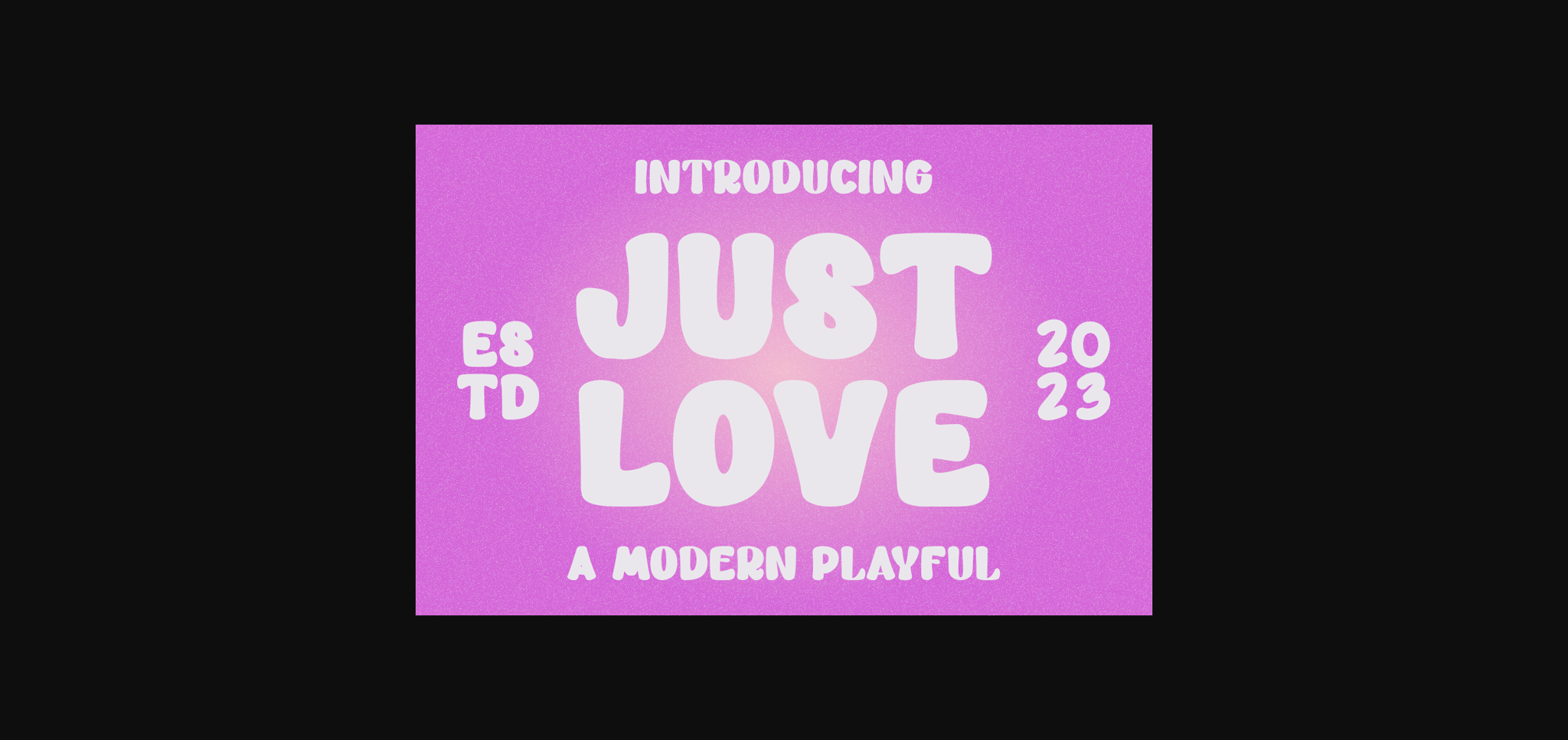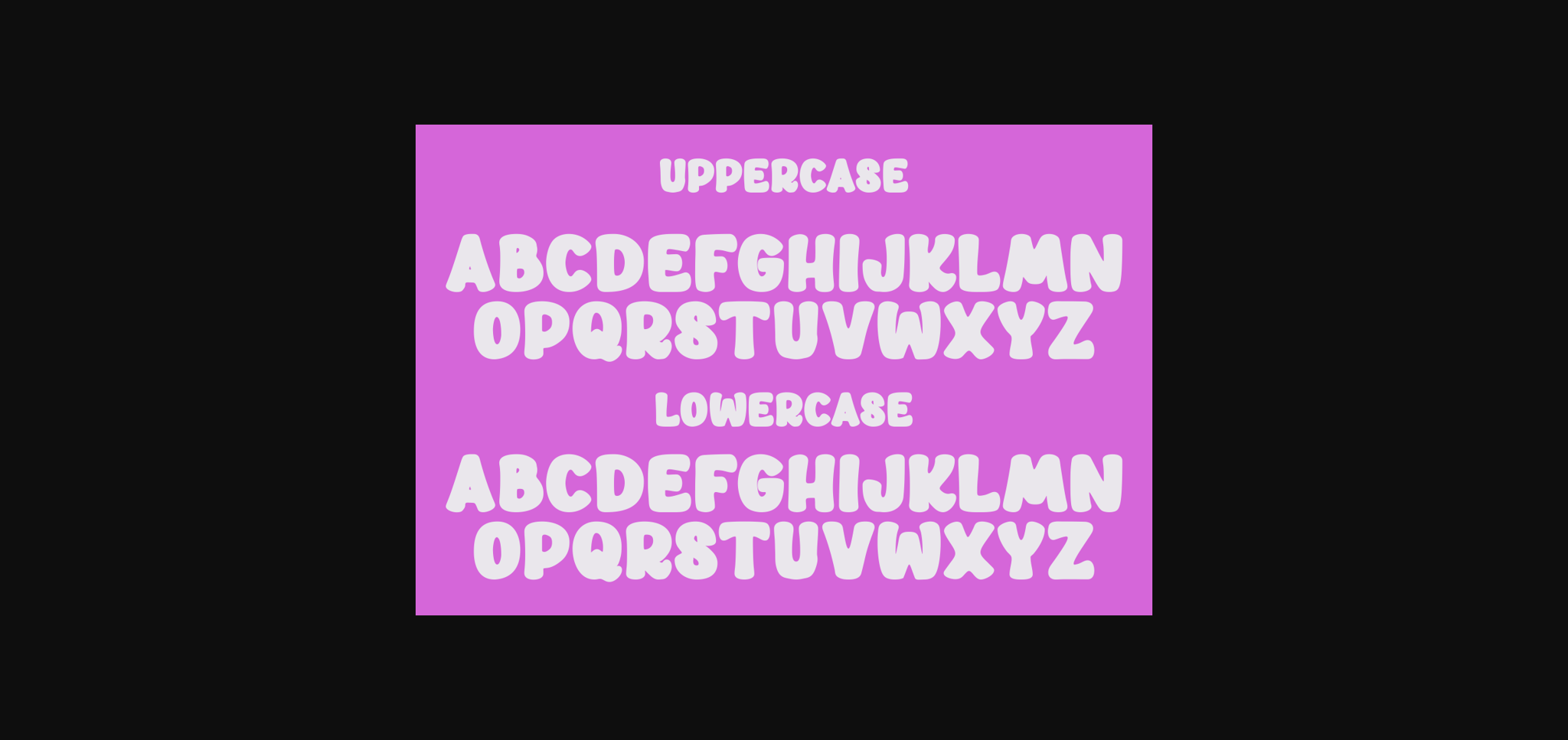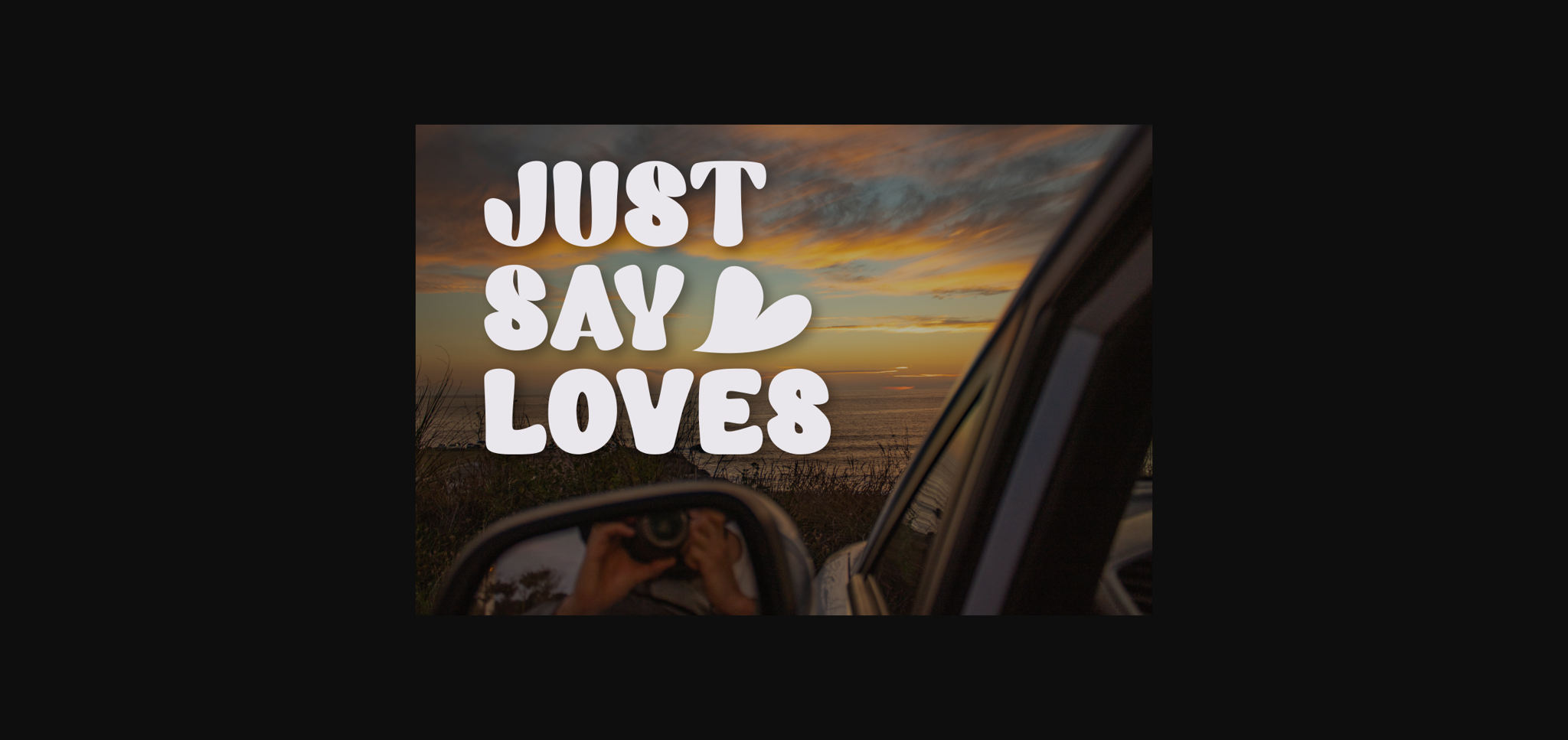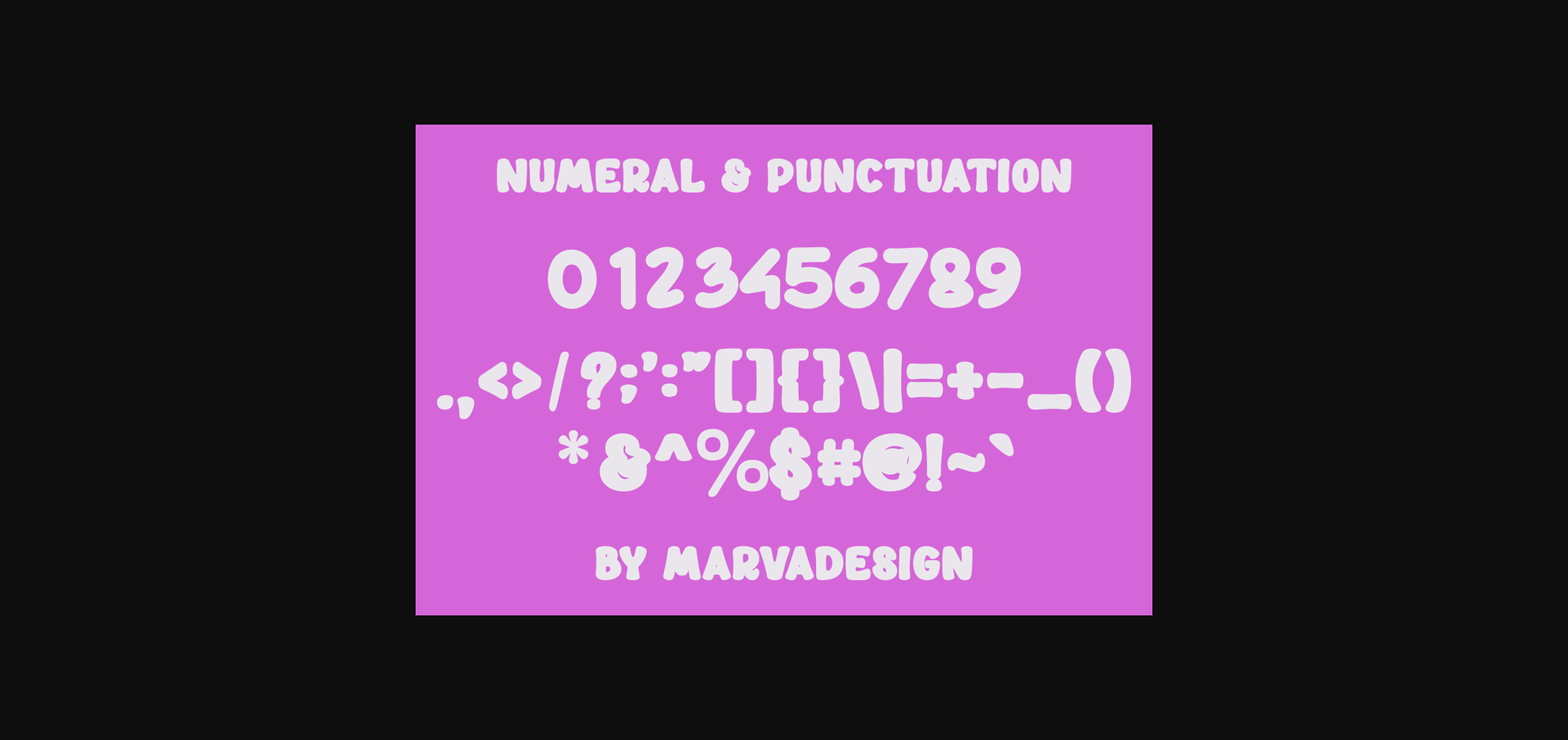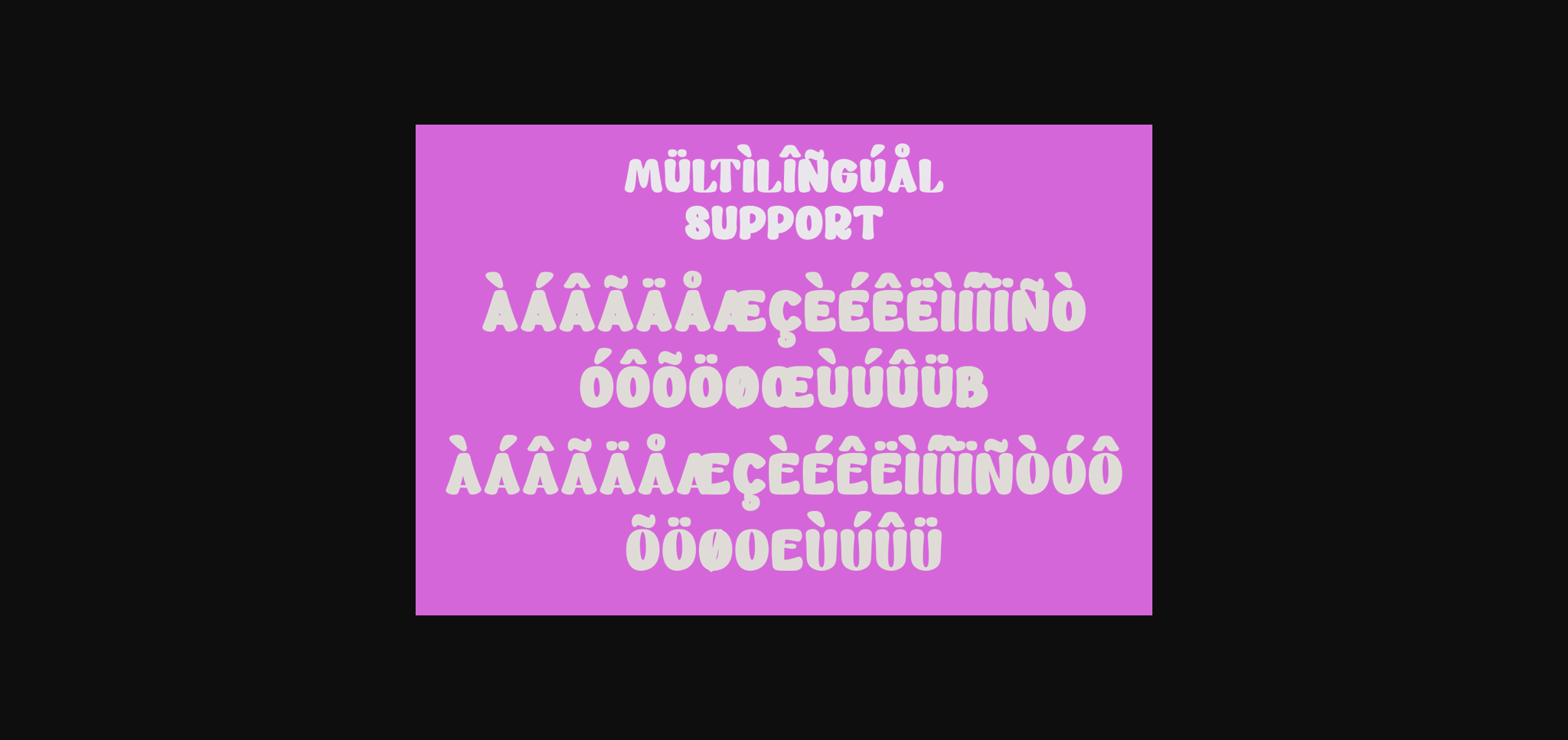
Just Love Font
About Just Love Font
JUST LOVE is a modern and playful font that radiates positive vibes. With a contemporary twist, it adds a touch of fun and friendliness to your projects. Perfect for expressing joy, this font brings a lighthearted charm to any design. Whether you’re working on cards, posters, or social media graphics, JUST LOVE is your go-to choice for a fresh and upbeat look. Spread love with style using this delightful and versatile font.